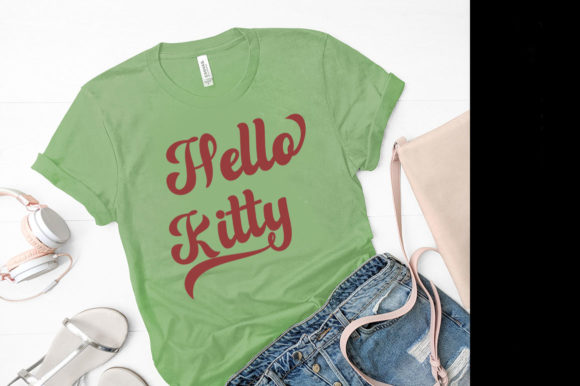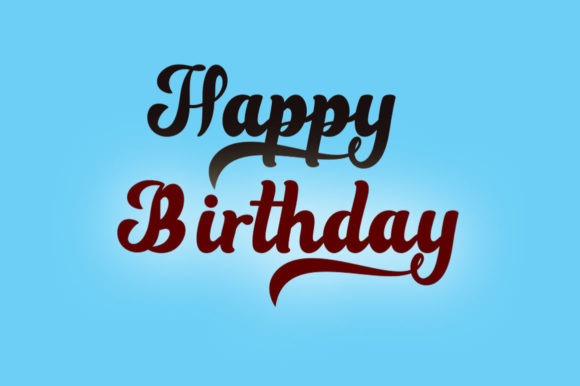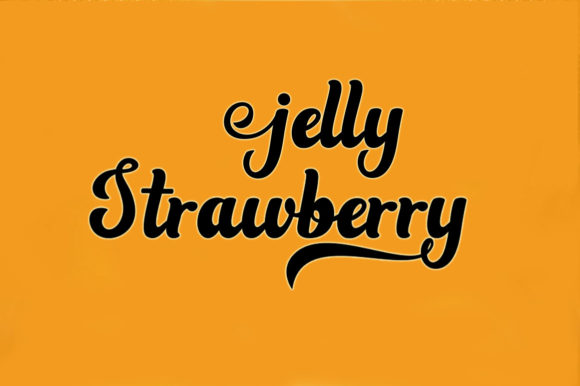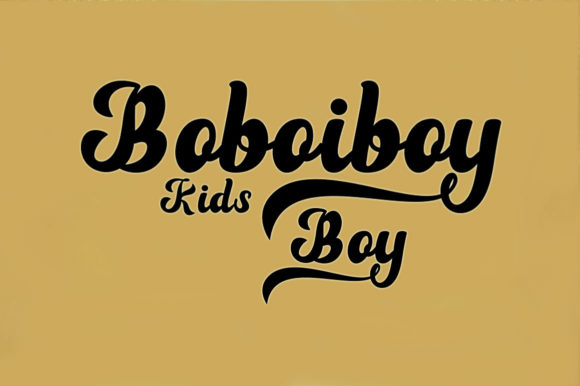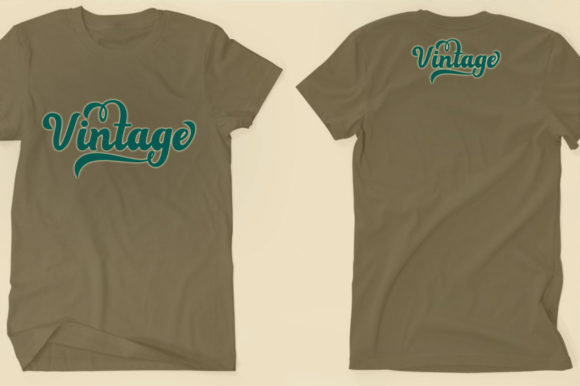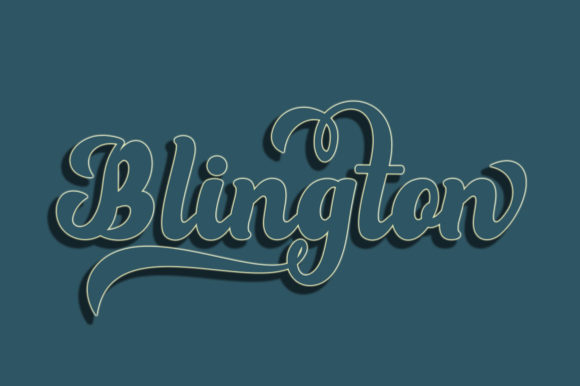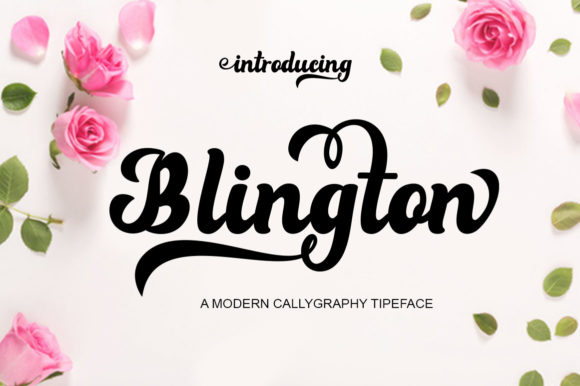
Introducing Blington Font: The Modern Script Font for Authentic Charm
In the world of typography, fonts play a crucial role in conveying messages, expressing emotions, and creating visual identities. For designers, crafters, and writers, finding the right font can be a daunting task, especially when it comes to replicating a natural writing style. That’s where Blington Font comes in – a modern script font designed to capture the essence of authentic handwriting.
The Story Behind Blington Font
Blington Font is a carefully crafted typeface that draws inspiration from traditional handwriting techniques. Its unique design combines the elegance of modern script fonts with the imperfections of natural writing, creating a distinctive and charming aesthetic. The result is a font that feels both contemporary and nostalgic, perfect for projects that require a personal touch.
Key Features of Blington Font
• Natural Writing Style: Blington Font is designed to mimic the imperfections of handwriting, with subtle variations in line width, spacing, and letterforms.
• Modern Elegance: Despite its natural inspiration, Blington Font boasts a sleek and modern appearance, making it suitable for a wide range of design applications.
• High Legibility: The font’s clear and open letterforms ensure excellent readability, even at small sizes.
• Extensive Character Set: Blington Font includes a comprehensive set of characters, covering multiple languages and special characters.
Uses for Blington Font
Blington Font’s versatility makes it an excellent choice for various design projects, including:
• Branding and Logo Design: Add a touch of personality to your brand with Blington Font’s unique, hand-crafted aesthetic.
• Stationery and Invitations: Create beautiful, handwritten-style stationery and invitations for weddings, events, and more.
• Packaging and Product Design: Use Blington Font to add a personal touch to product labels, packaging, and marketing materials.
• Digital Media: Enhance your website, social media, or blog with Blington Font’s elegant, modern script style.
Tips for Using Blington Font
To get the most out of Blington Font, consider the following tips:
• Pair with Contrasting Fonts: Combine Blington Font with a clean, sans-serif font to create visual interest and contrast.
• Experiment with Colors: Try pairing Blington Font with a range of colors to find the perfect match for your design.
• Pay Attention to Spacing: Adjust the spacing between letters and words to create a more natural, handwritten feel.
Blington Font is a unique and captivating modern script font that offers a refreshing alternative to traditional typography. Its authentic charm and natural writing style make it an excellent choice for designers, crafters, and writers looking to add a personal touch to their projects. With its extensive character set, high legibility, and versatility, Blington Font is sure to inspire your next creative endeavor.